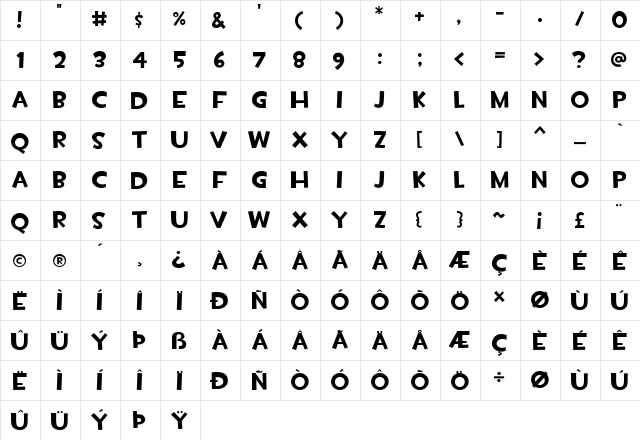
Design Context for TF2 Build Typeface
TF2 Build takes a measured approach to typography — its balanced proportions and neutral character make it a reliable workhorse for both digital and print work.